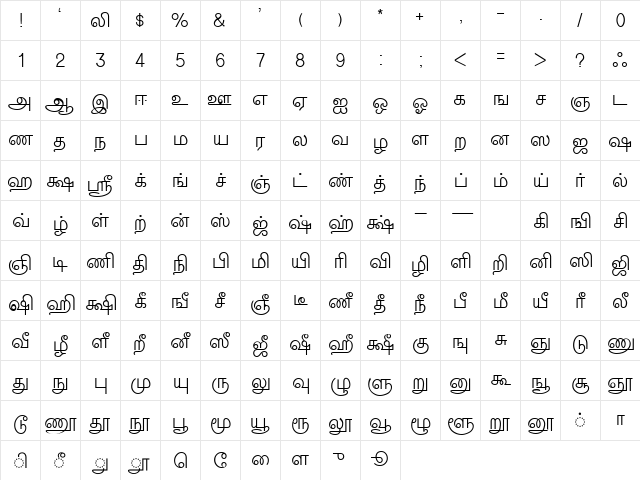
TMNEWS 0-Normal A
Design Context for TMNEWS Typeface
TMNEWS offers clean, dependable letterforms without strong stylistic allegiance, making it a practical choice for designers who need flexibility.